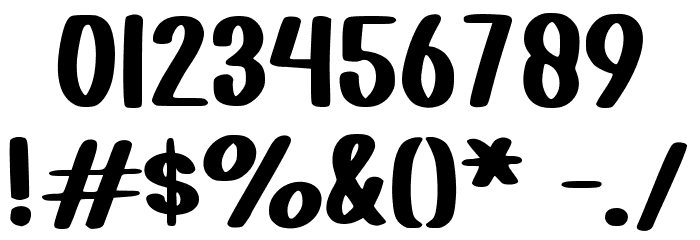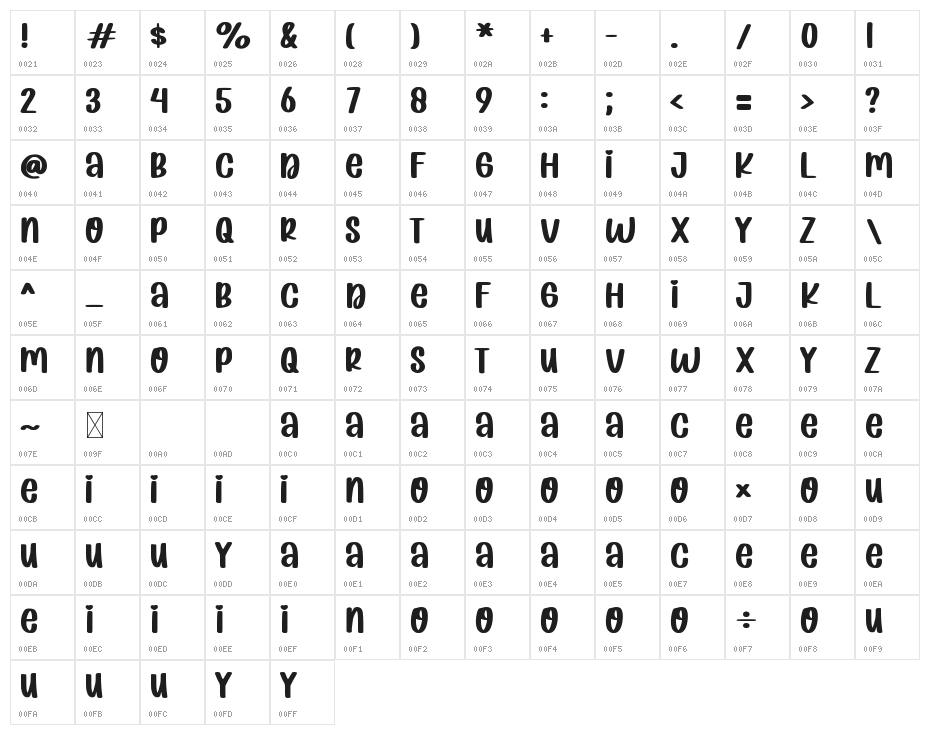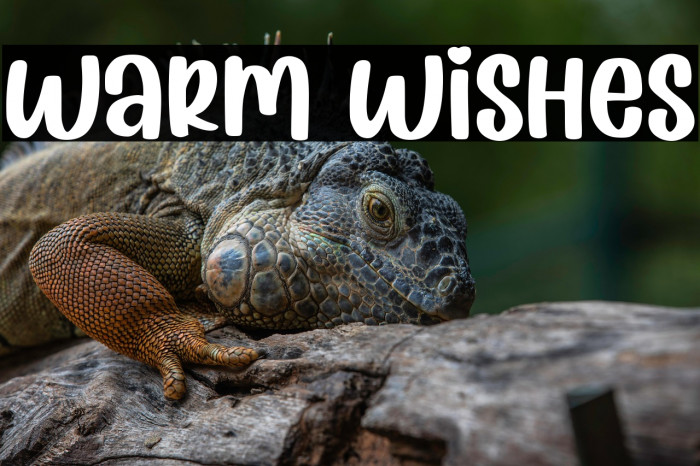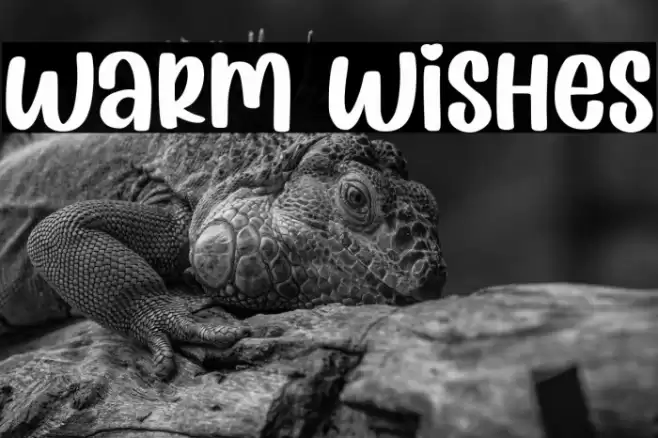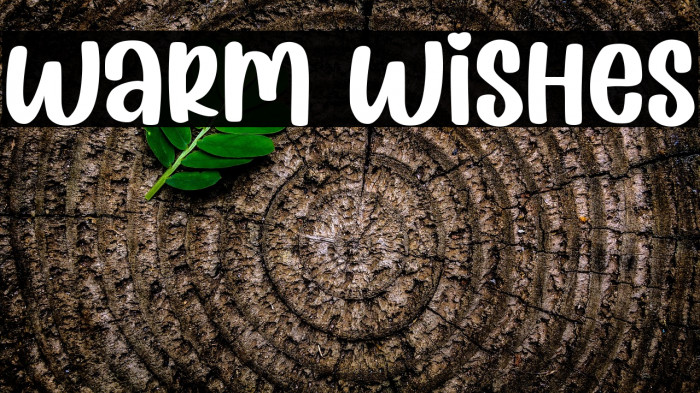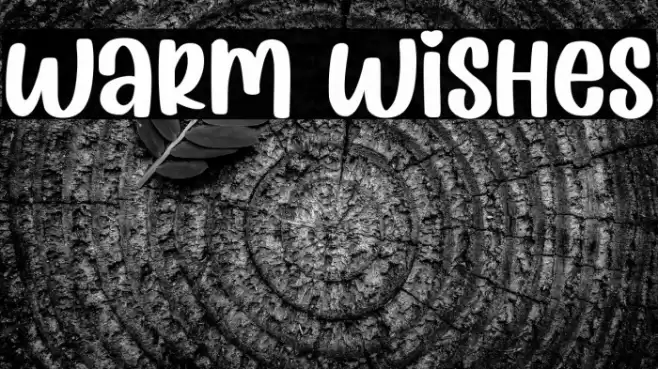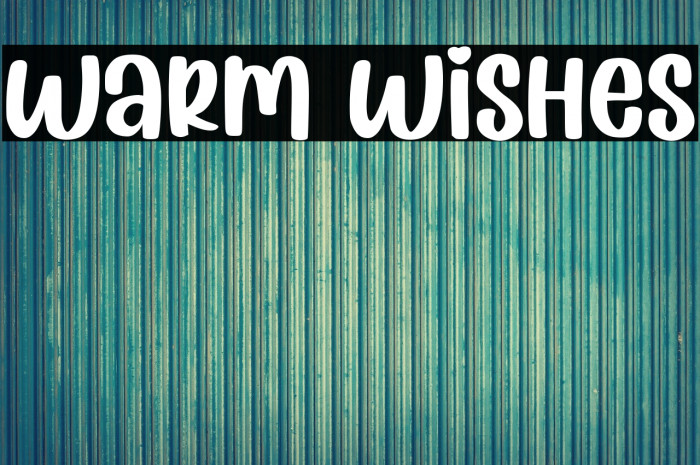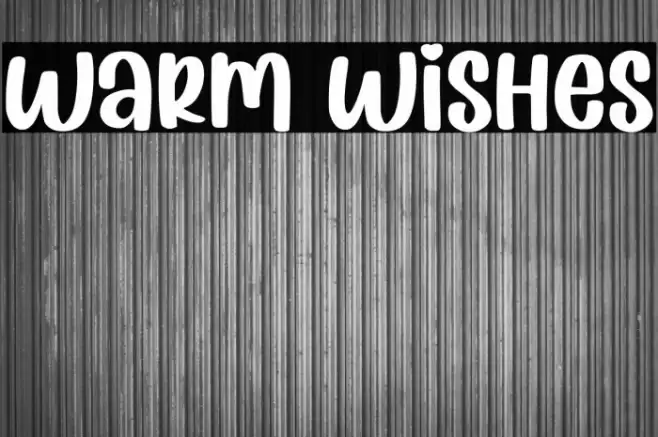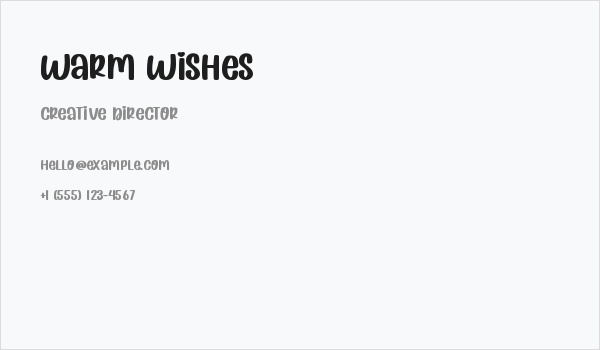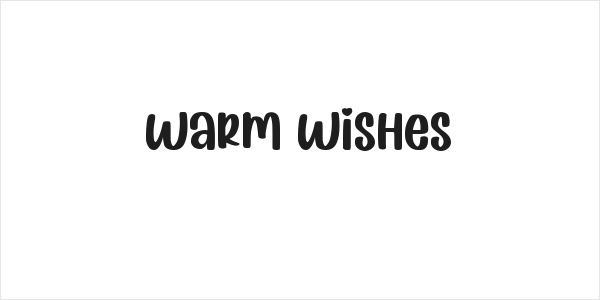
Warm Wishes Font
Warm Wishes Description
This playful and bold font features a handwritten style with a friendly and inviting appearance. The characters are rounded and slightly irregular, giving them a casual and approachable feel. The uppercase and lowercase letters maintain a consistent style, with a slight slant that adds to the dynamic nature of the font. The numbers and special characters are equally bold and match the overall aesthetic, making it versatile for various uses. The font's thick strokes and rounded edges contribute to its warm and welcoming vibe, making it ideal for projects that require a personal touch.